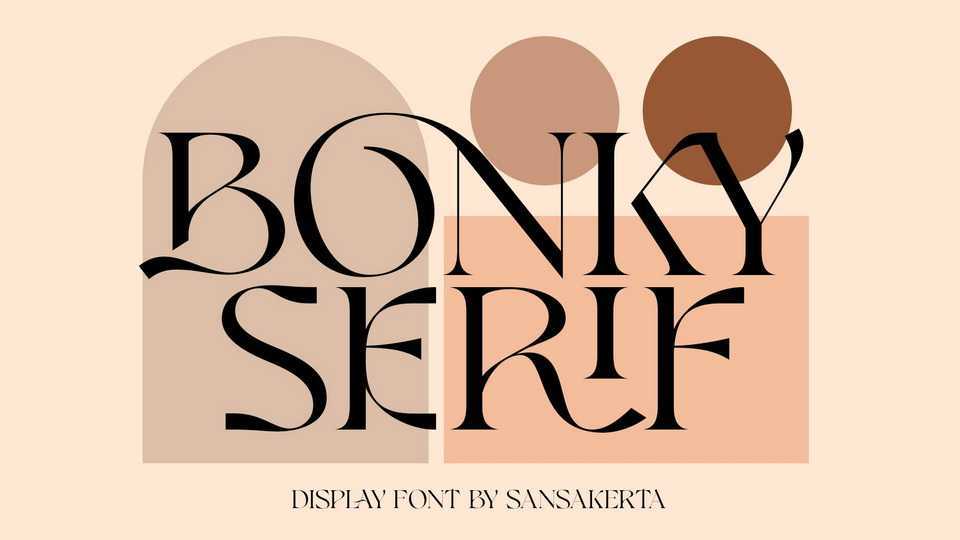
Download Bonky Serif font, a special vintage trendy style typeface made with accuracy. Bonky Serif is perfect for branding design, logo, greeting cards, headline packaging. and other designs.
Designer: Dean Nugraha